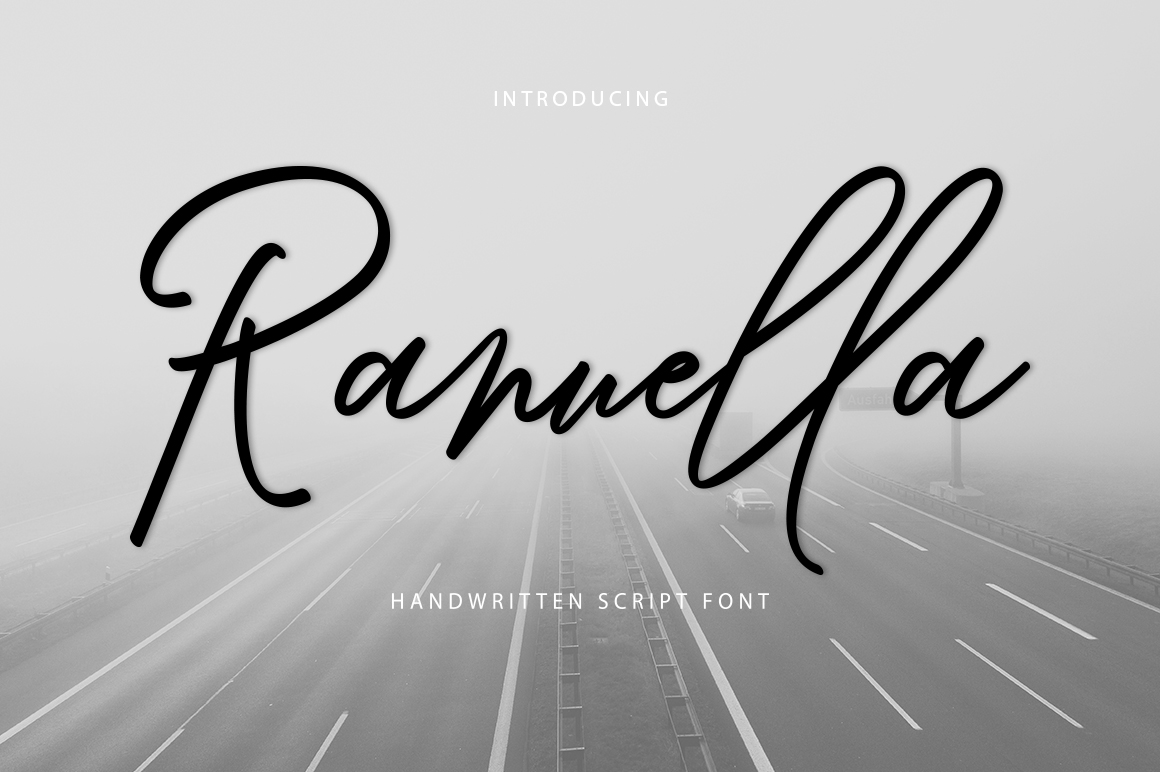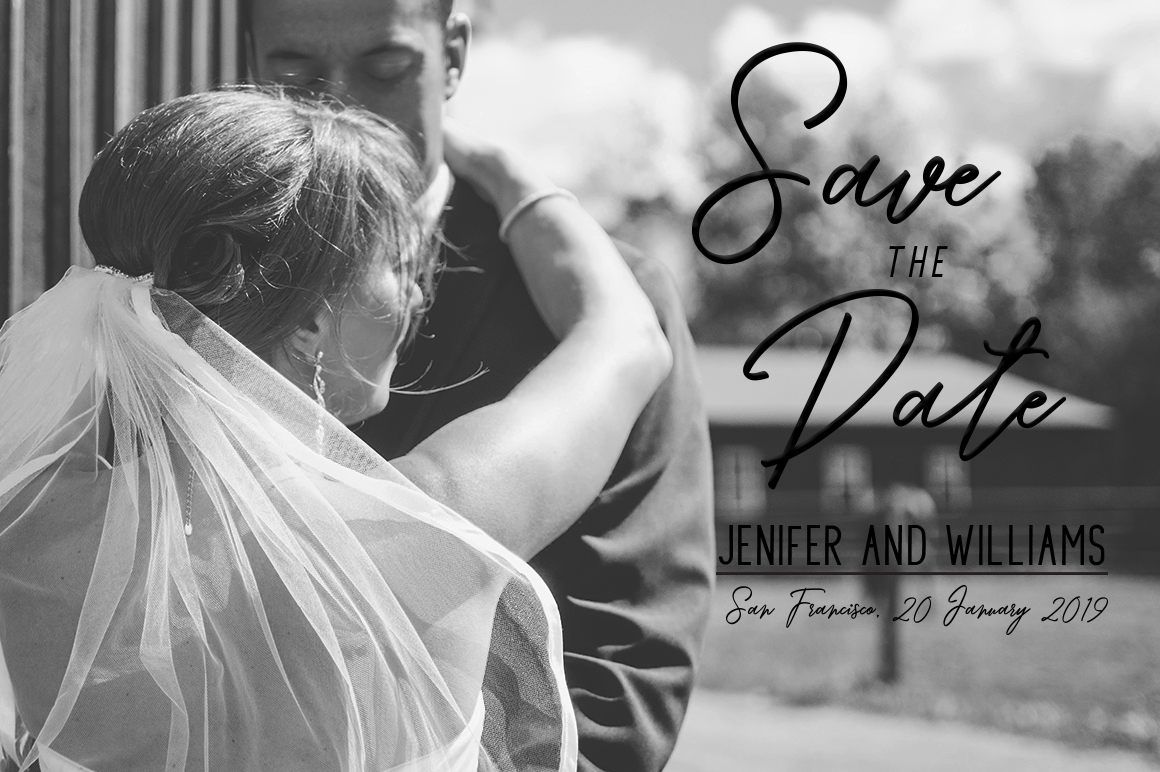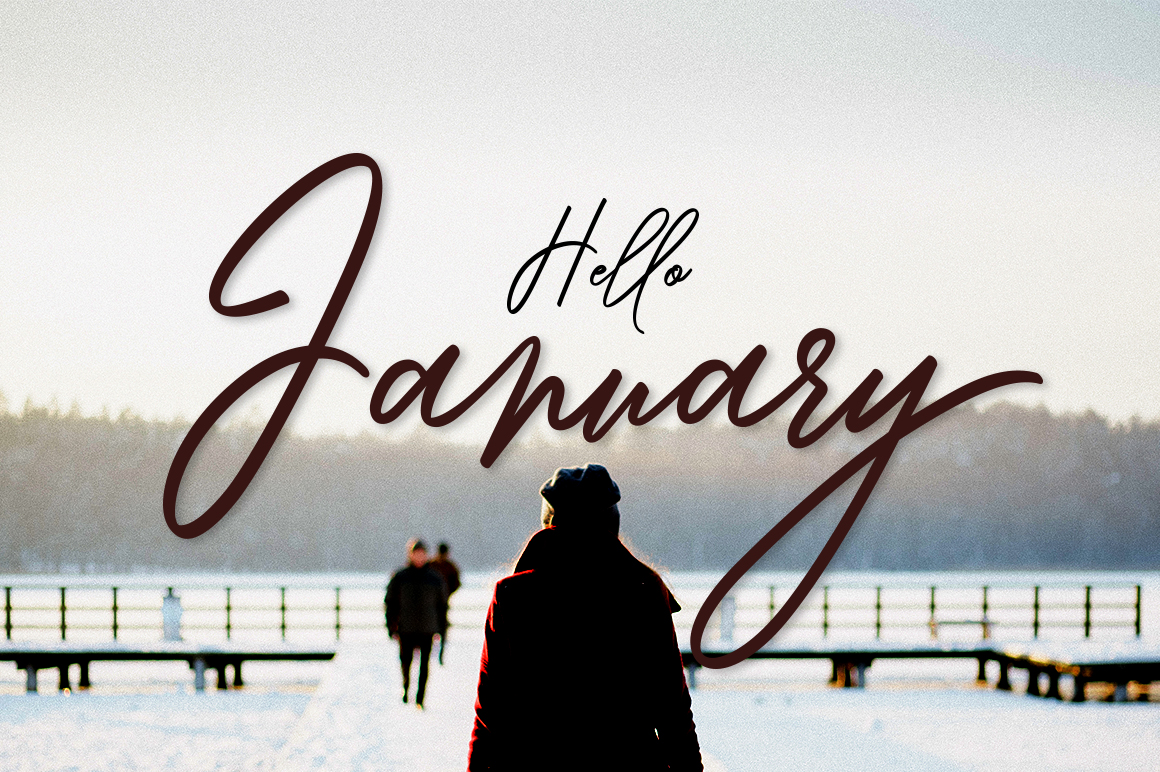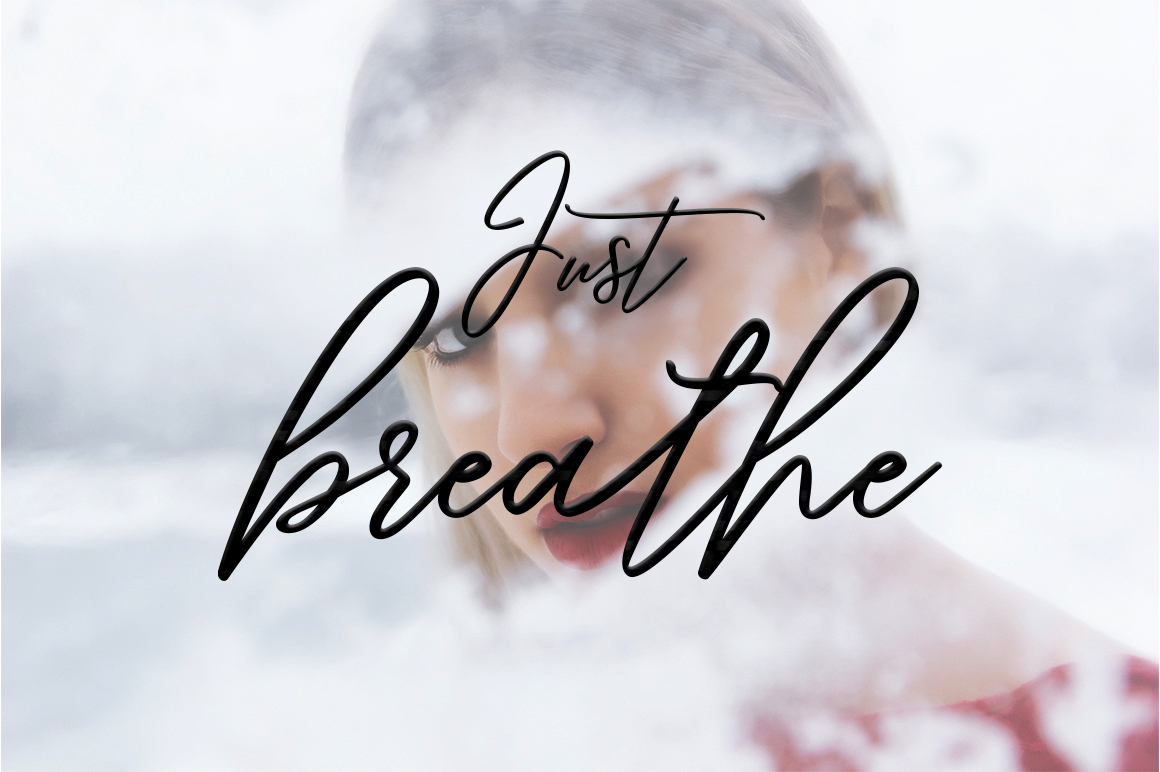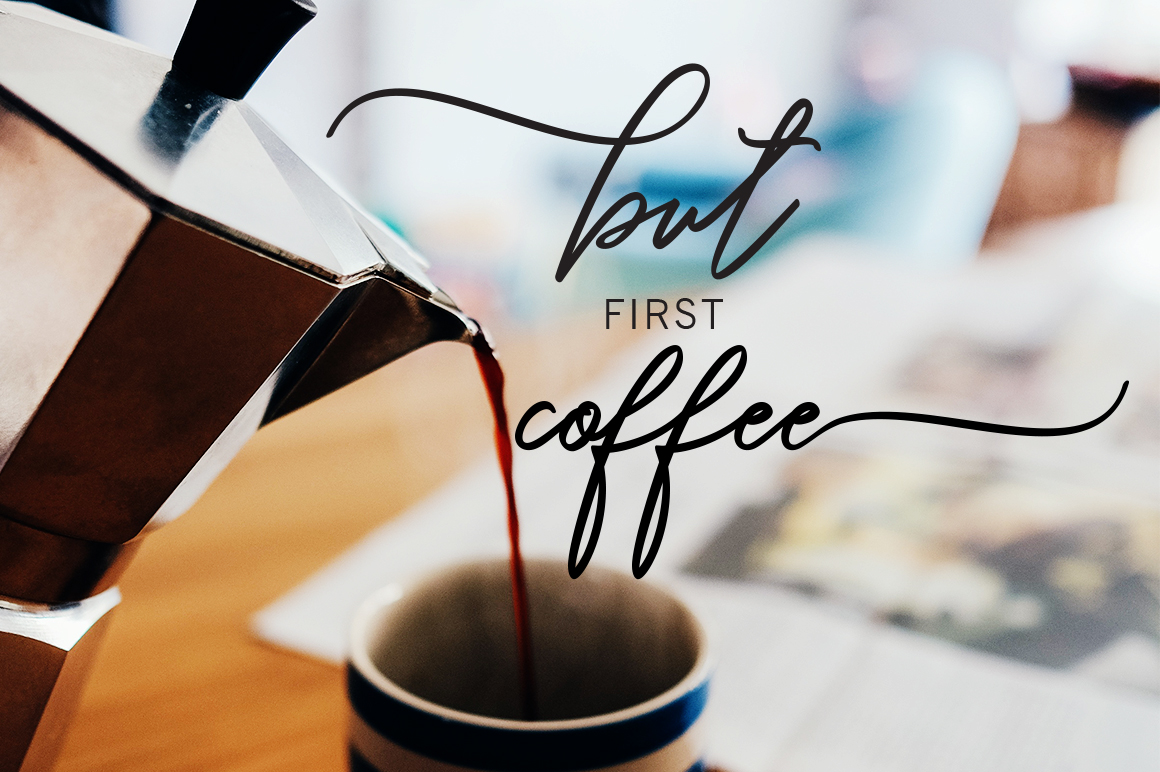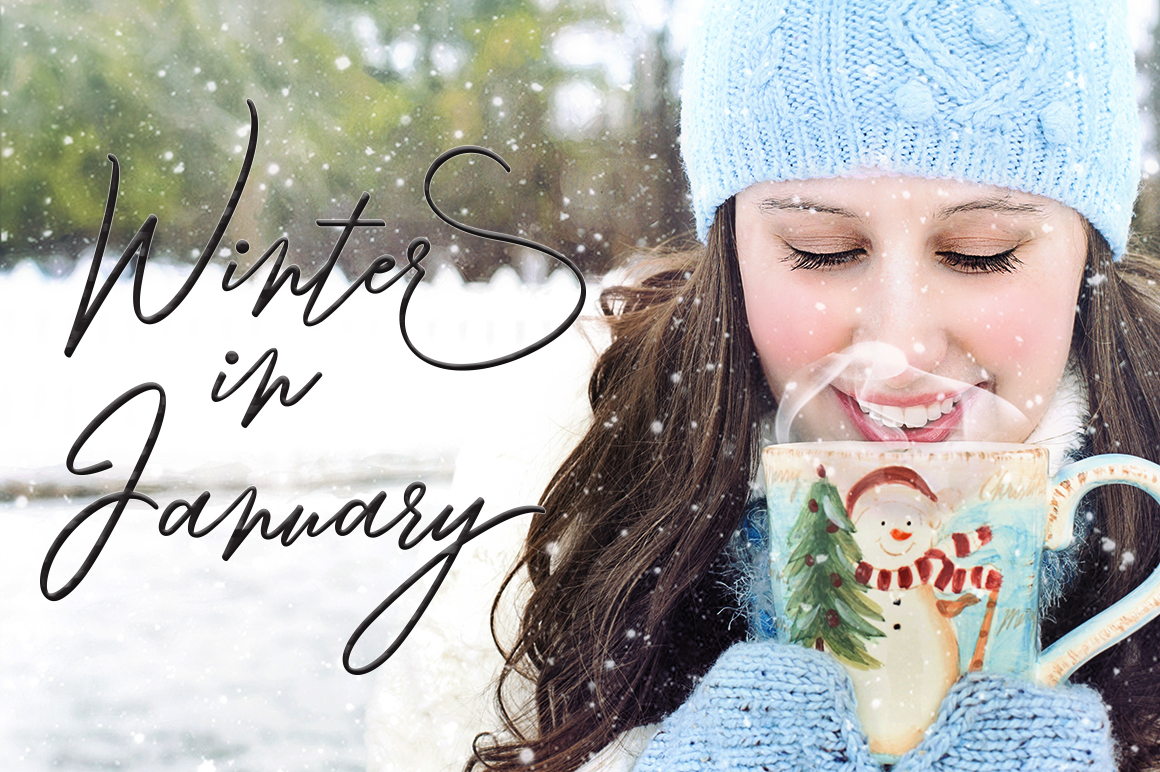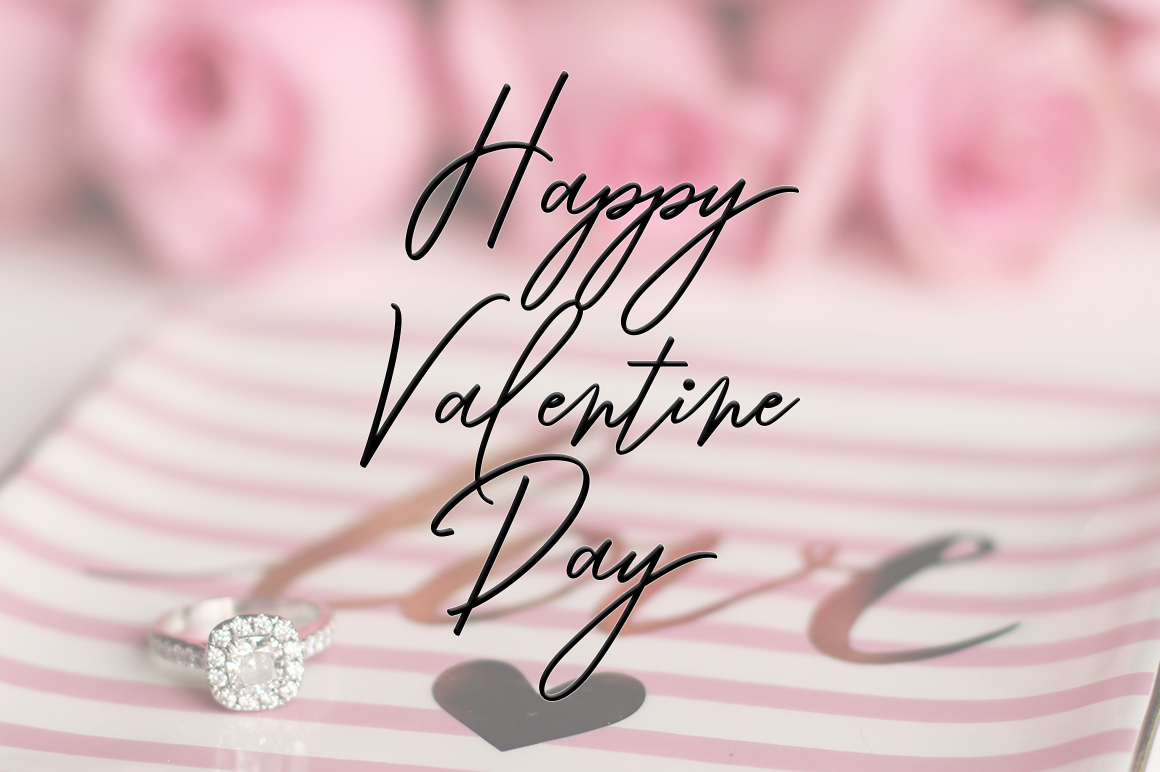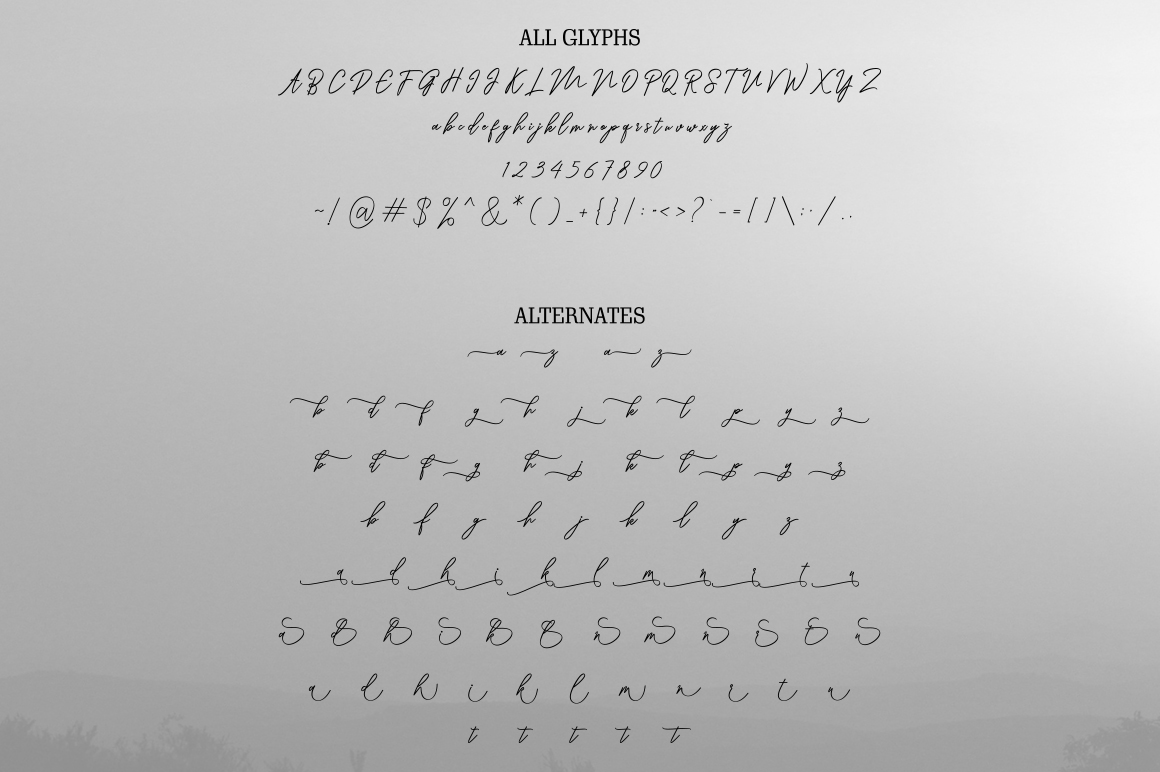
Ranuella Font
Ranuella is a casual and striking script font, ideal for projects that necessitate a branded yet carefree look. This font is monoline and clean, both elegant and modern.